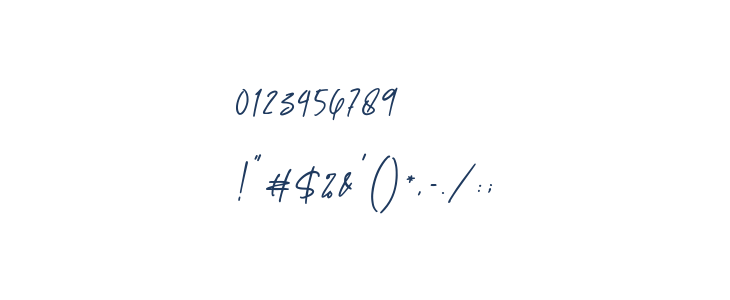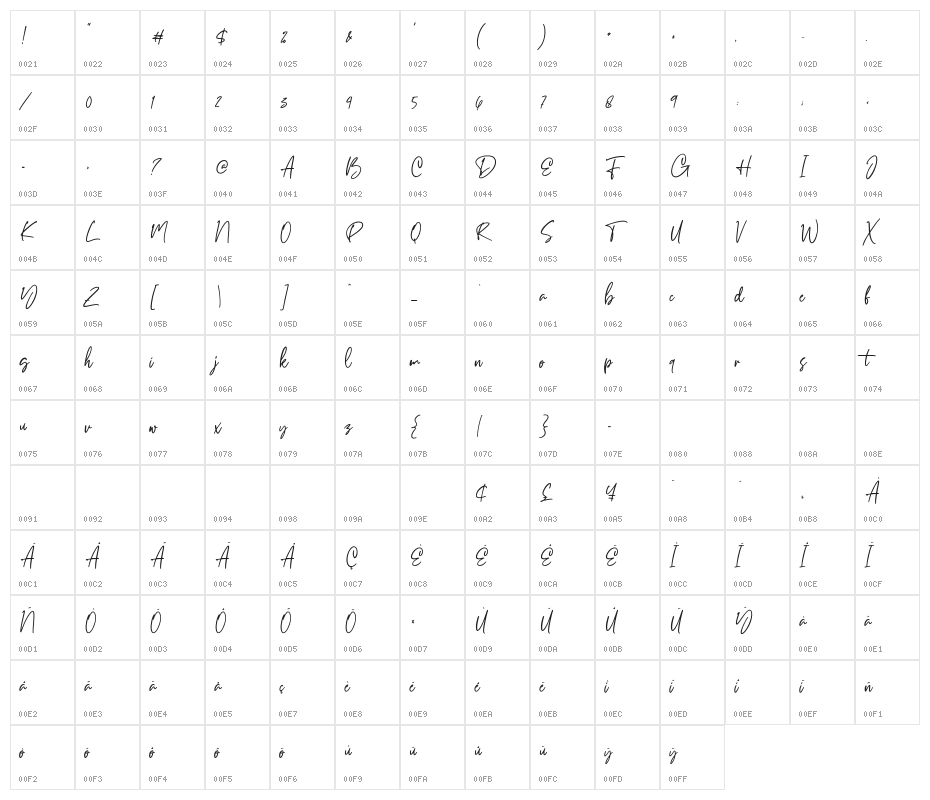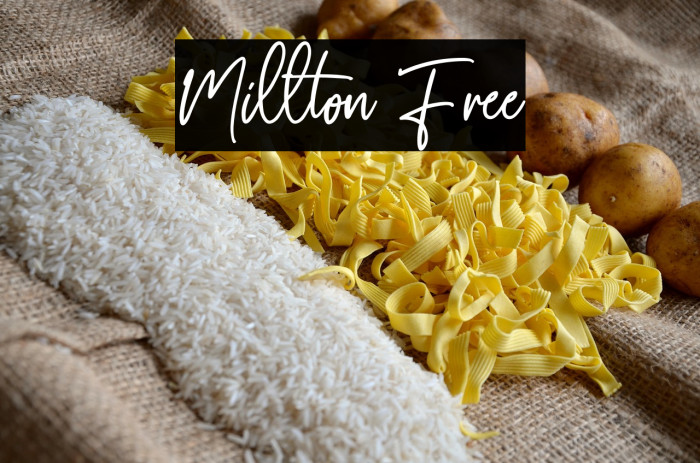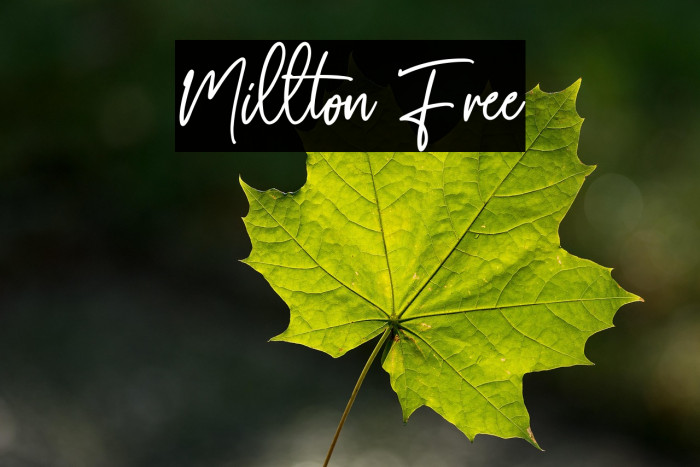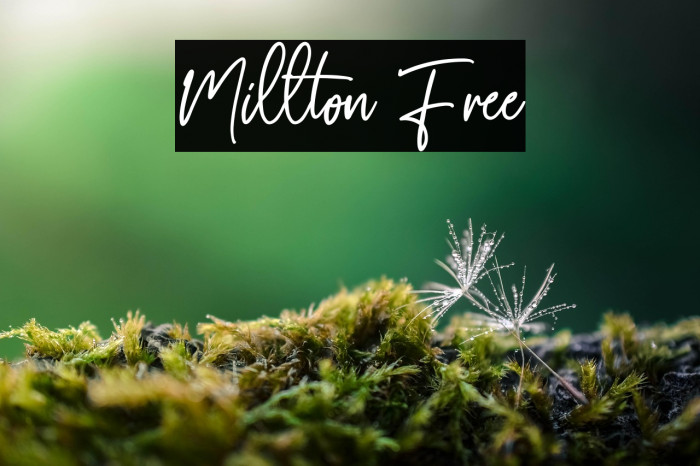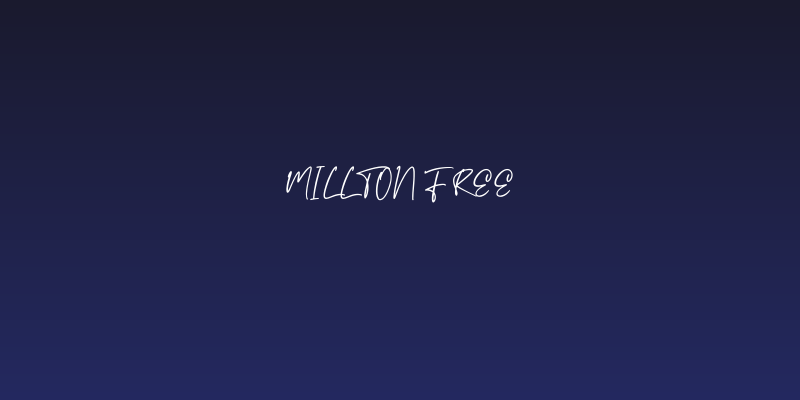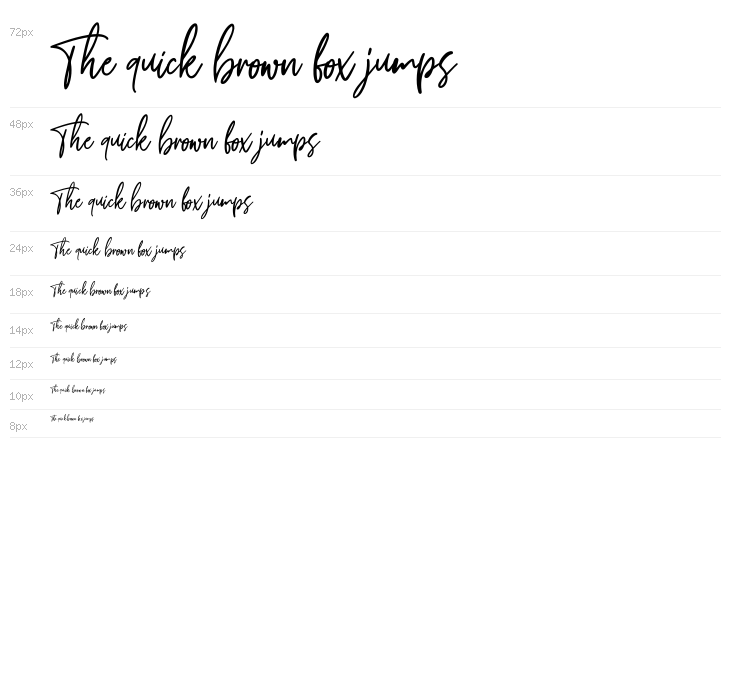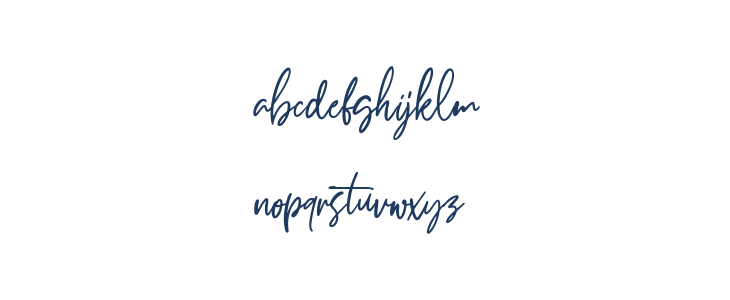
Millton Free Font
Millton Free Description
This font features a dynamic and flowing handwritten style, characterized by its elegant and fluid strokes. The uppercase letters exhibit a graceful, cursive form with a slight slant, giving them a sophisticated and artistic appearance. The lowercase letters maintain a consistent style, complementing the uppercase with their smooth and connected lines. Numbers and special characters are designed with the same flowing aesthetic, ensuring a cohesive look across all text. The overall impression is one of elegance and creativity, making it suitable for projects that require a personal touch.
| Overall Style | Elegant, Artistic |
| Proposed Projects | Ideal for wedding invitations, personal branding, greeting cards, and artistic projects. |